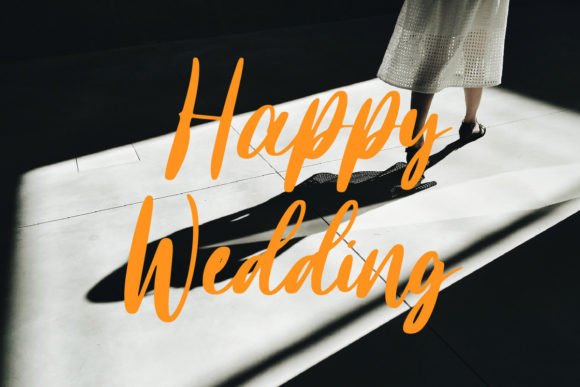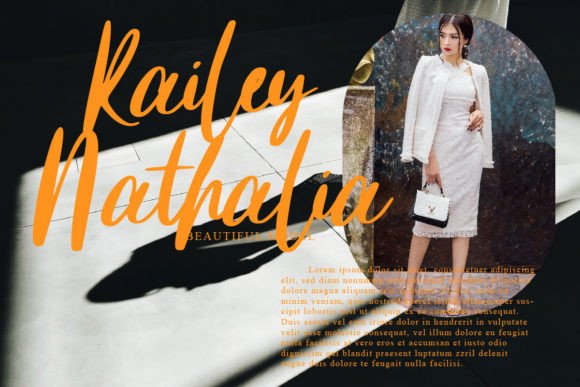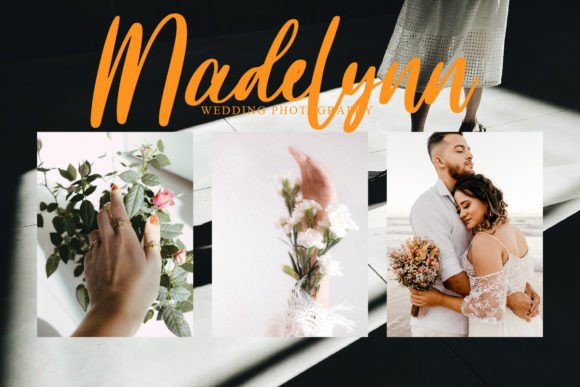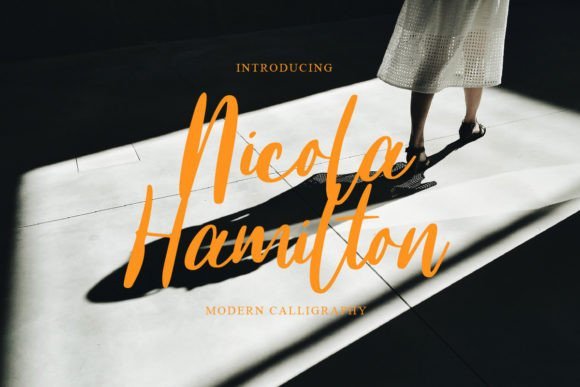
Introduction to Nicola Hamilton Font
Nicola Hamilton is an elegant handwritten font that is perfect for adding an attractive, personal touch to any design.
With its flowing loops and delicate details, it will bring a touch of beauty and sophistication .
Key Features of Nicola Hamilton Font
Why Choose Nicola Hamilton Font?
Nicola Hamilton Font offers exceptional quality and versatility, making it a valuable addition to your design toolkit. Whether you’re creating for personal projects or commercial use, Nicola Hamilton Font delivers professional results.